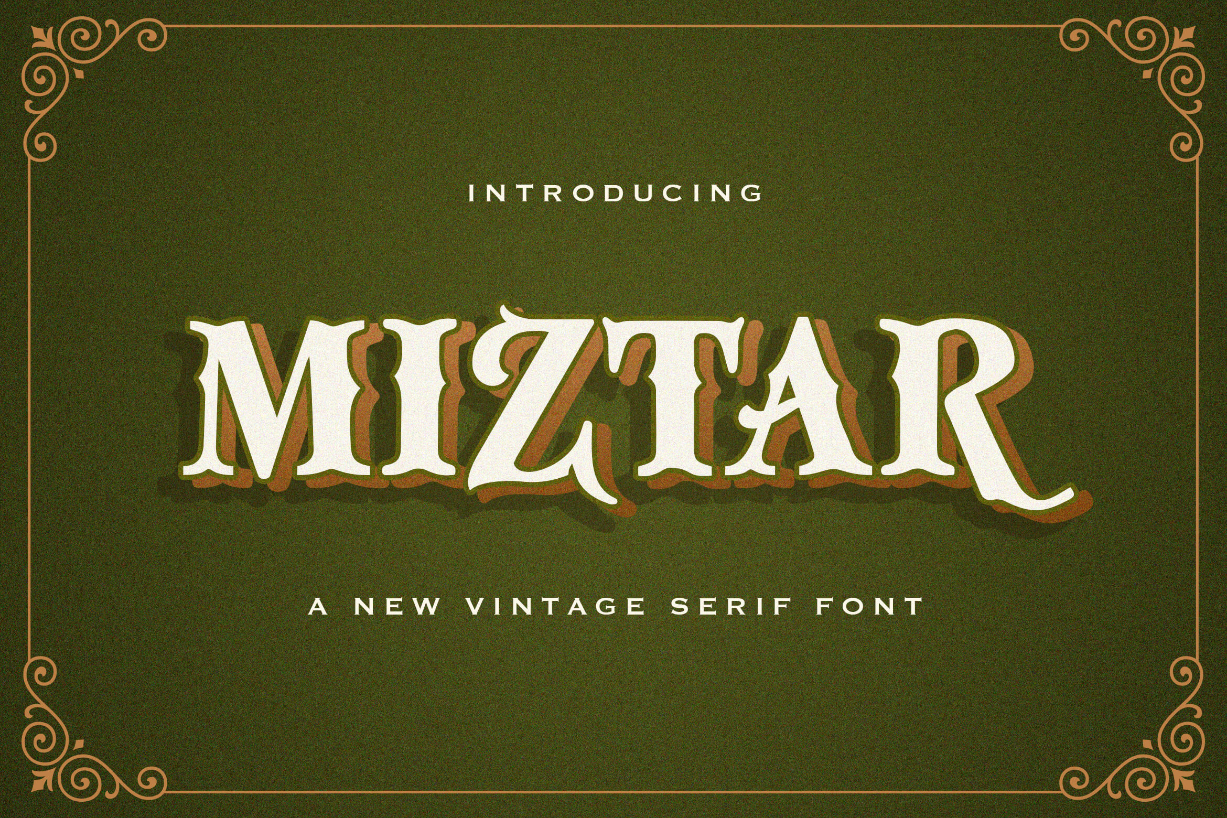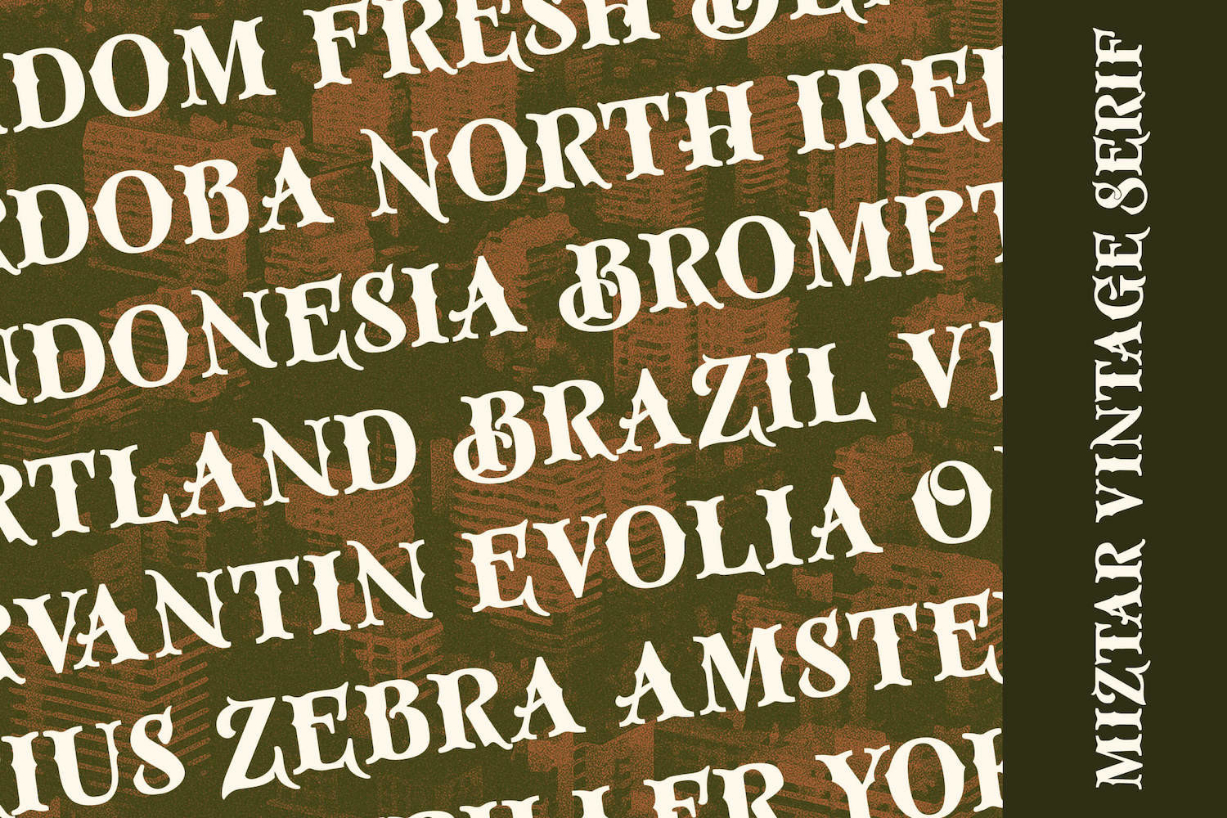
About Miztar Font
Miztar is a vintage and bold blackletter font. Distinct and thick lettered, this font will instantly make your creation stand out of the crowd. Add it confidently to your projects, and you will love the results.